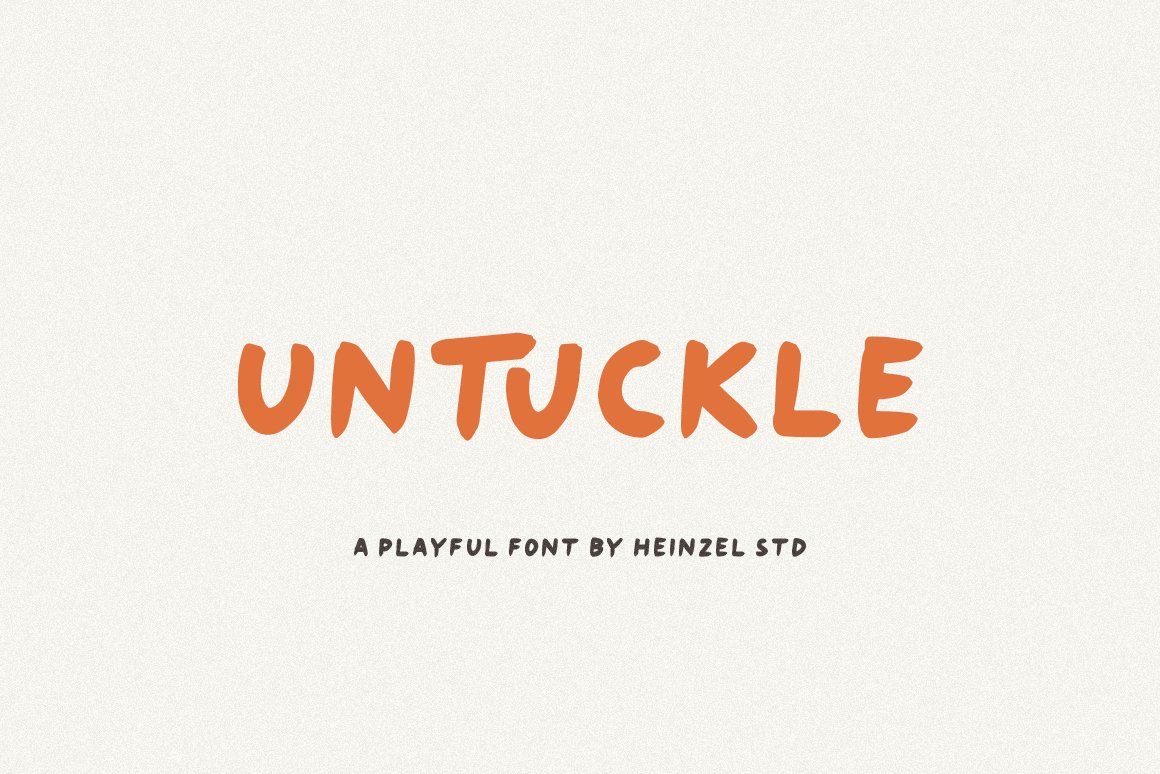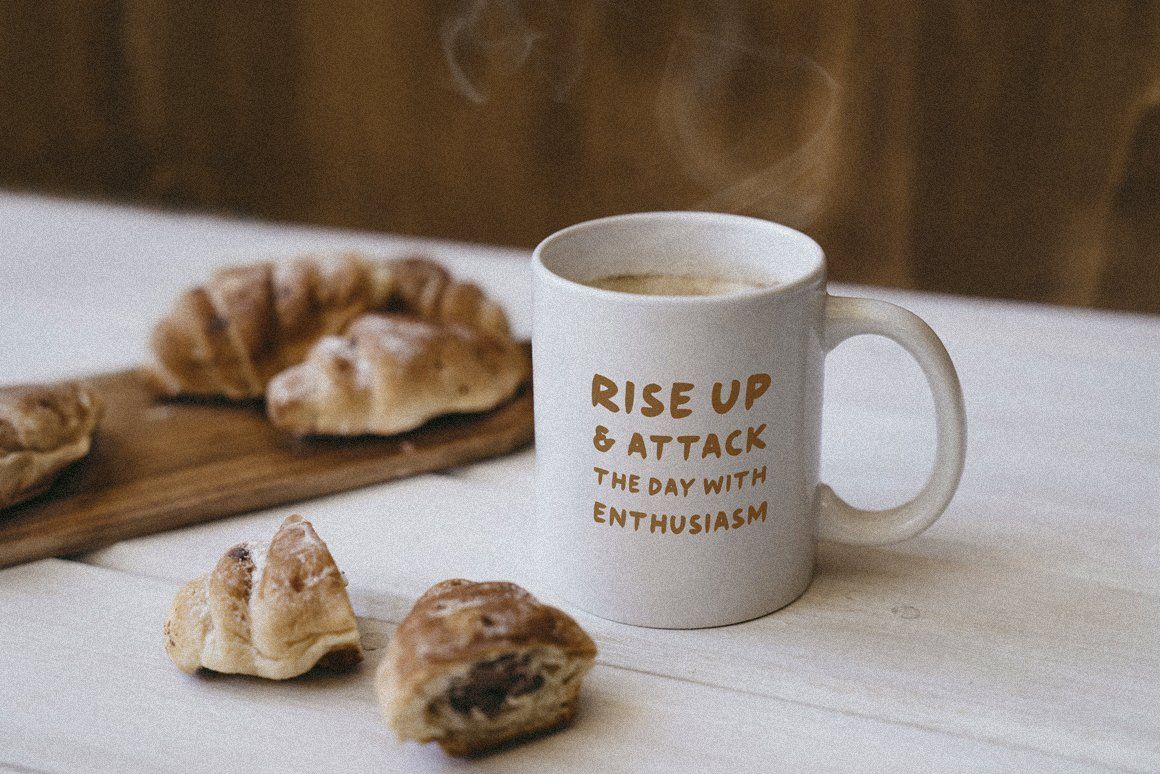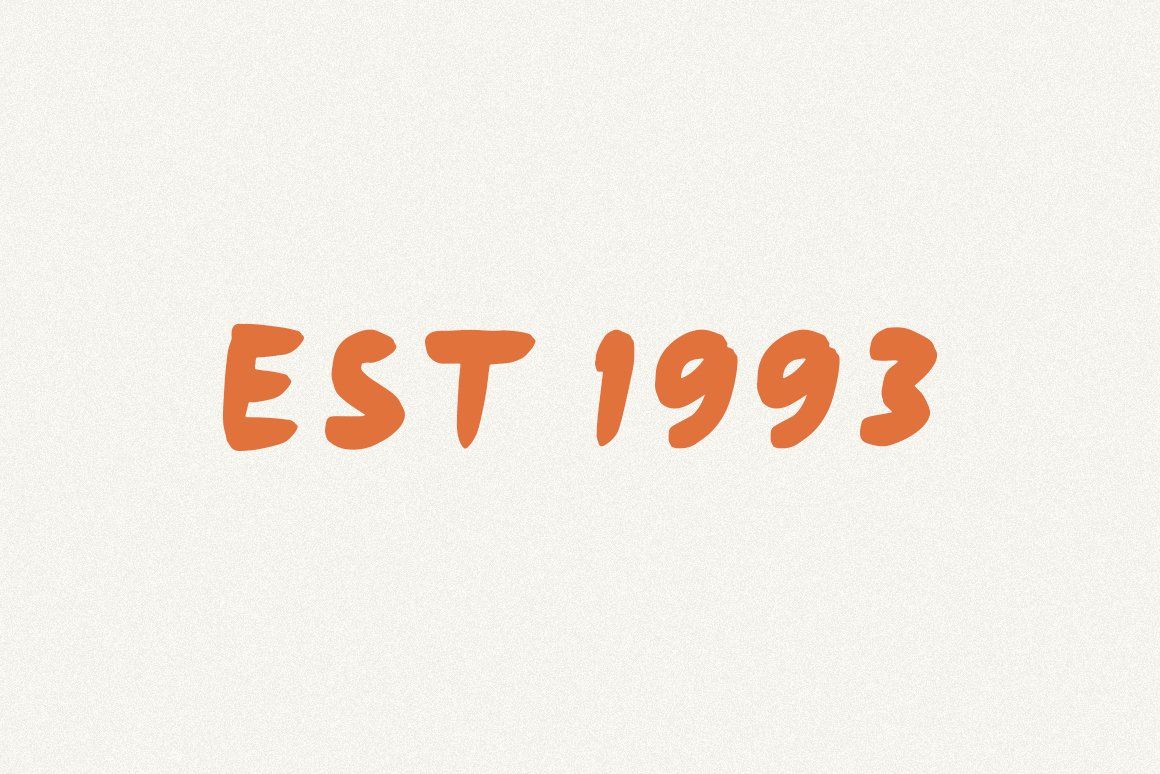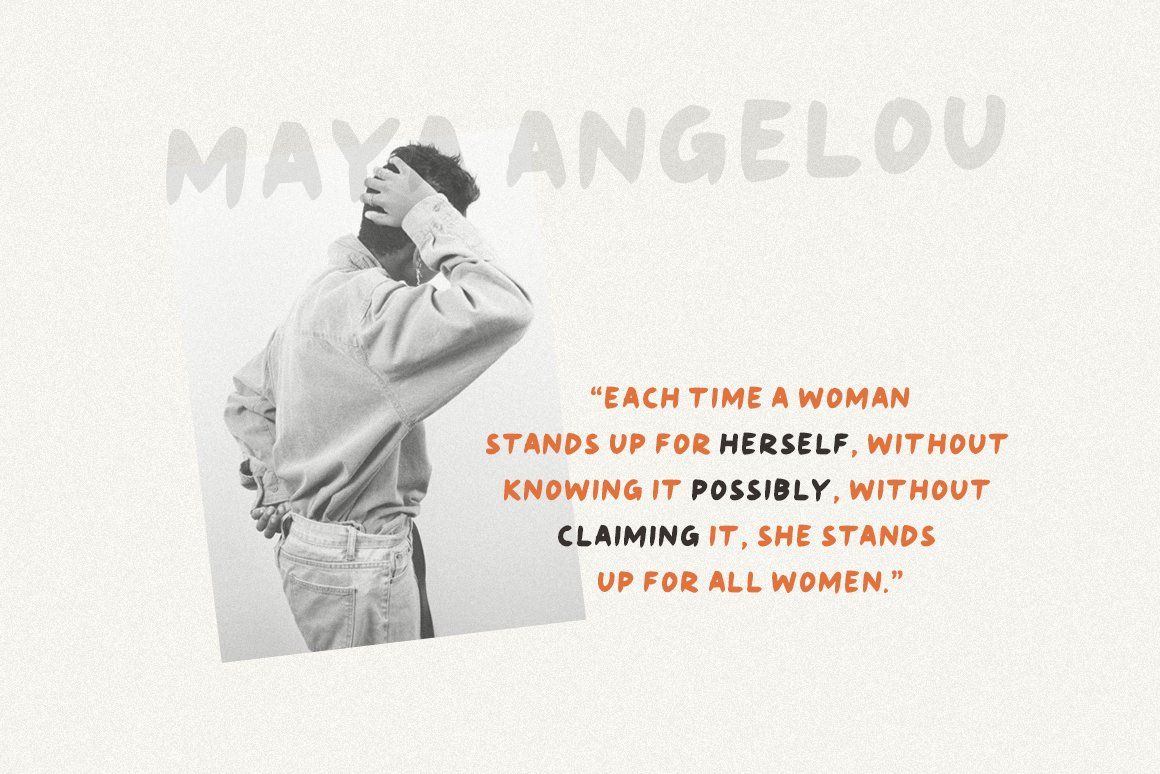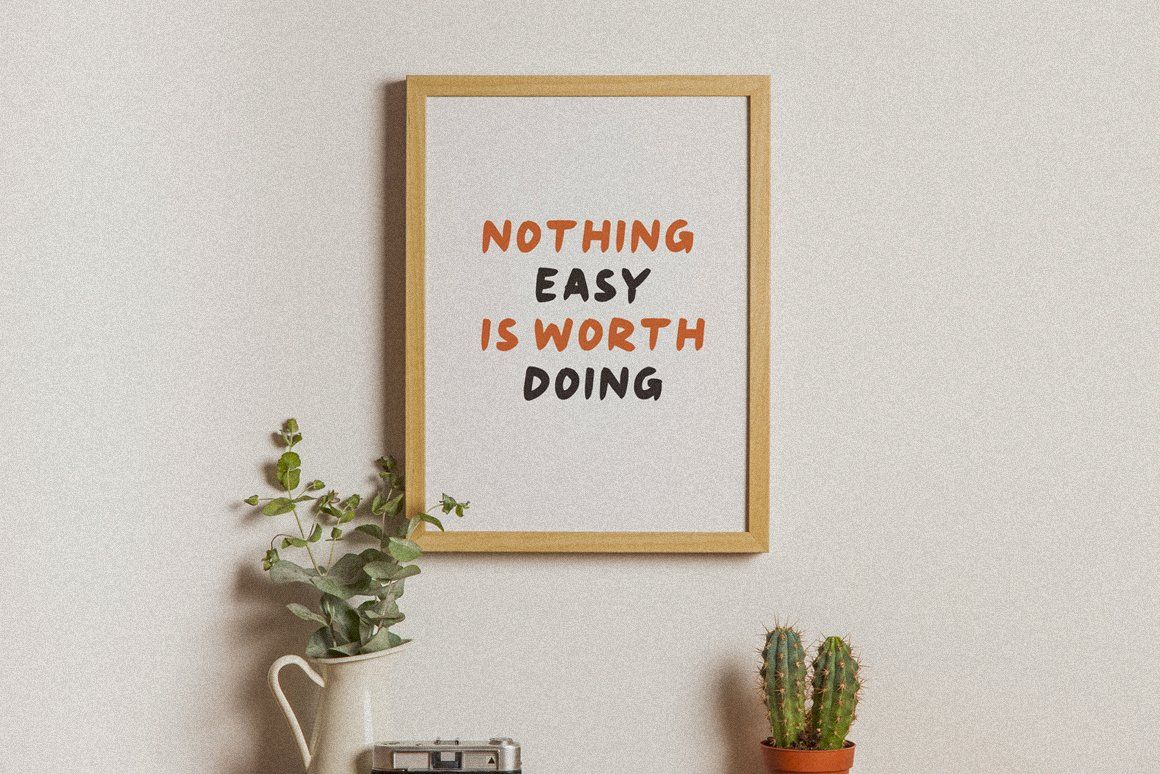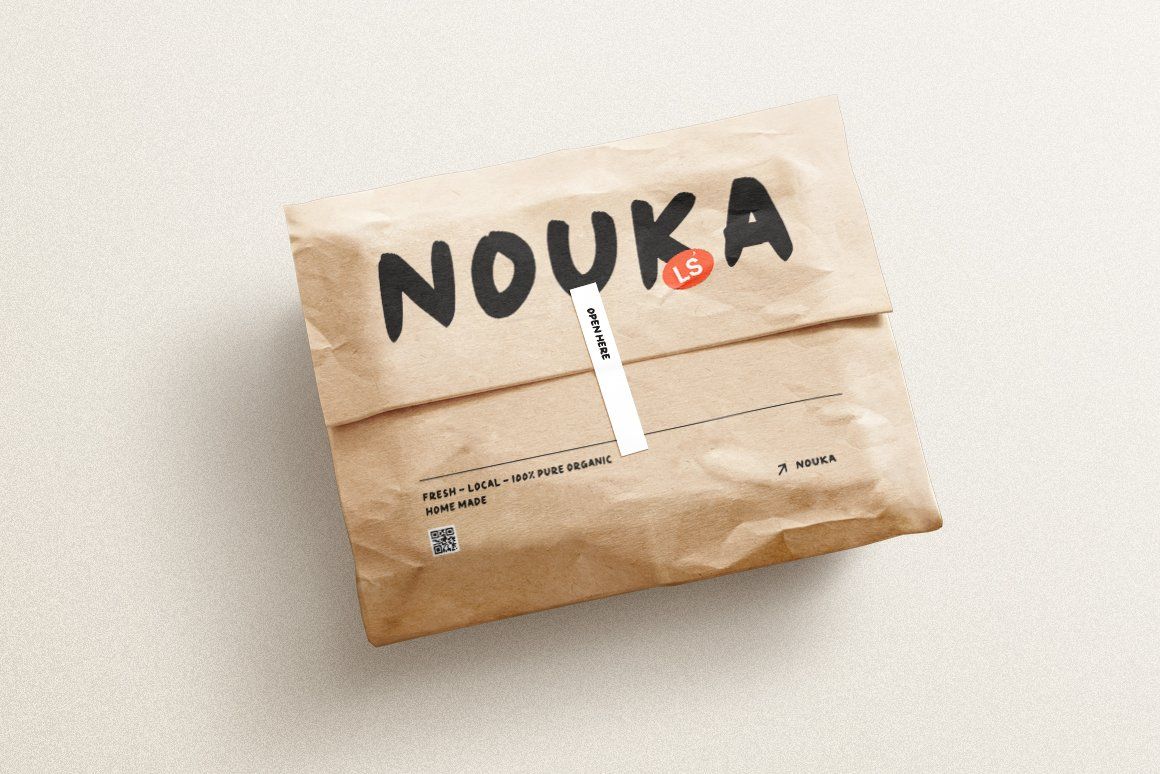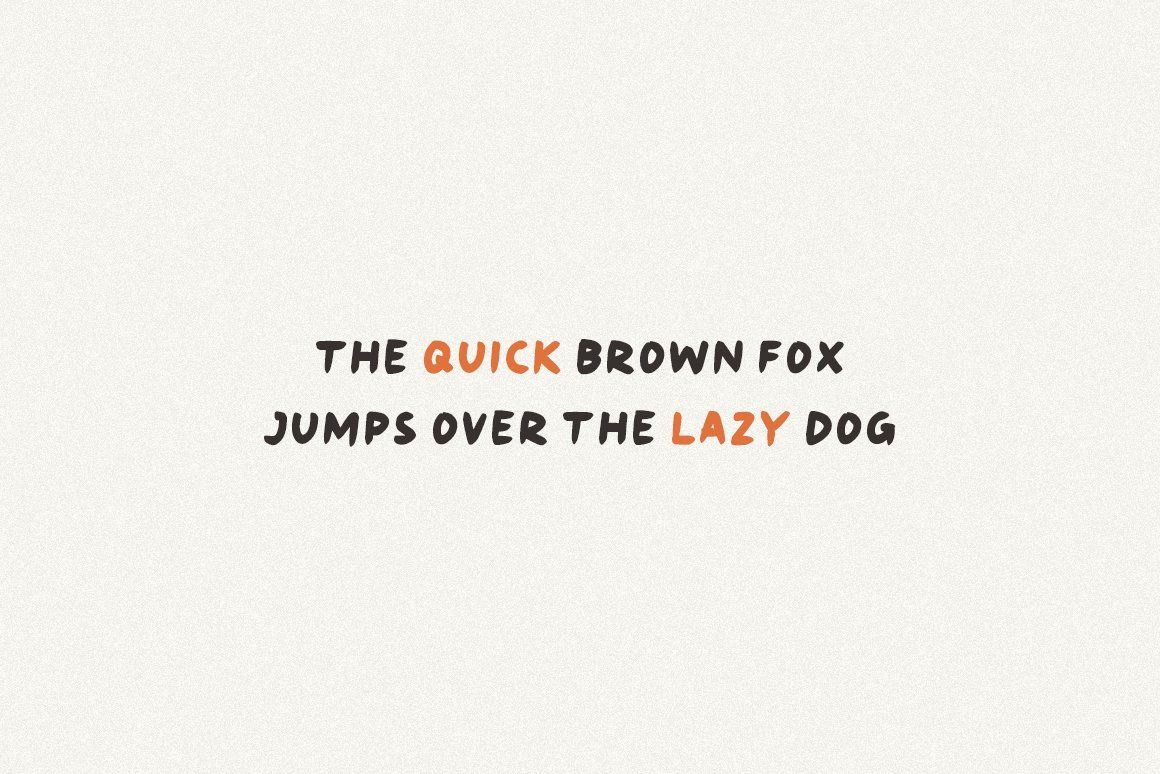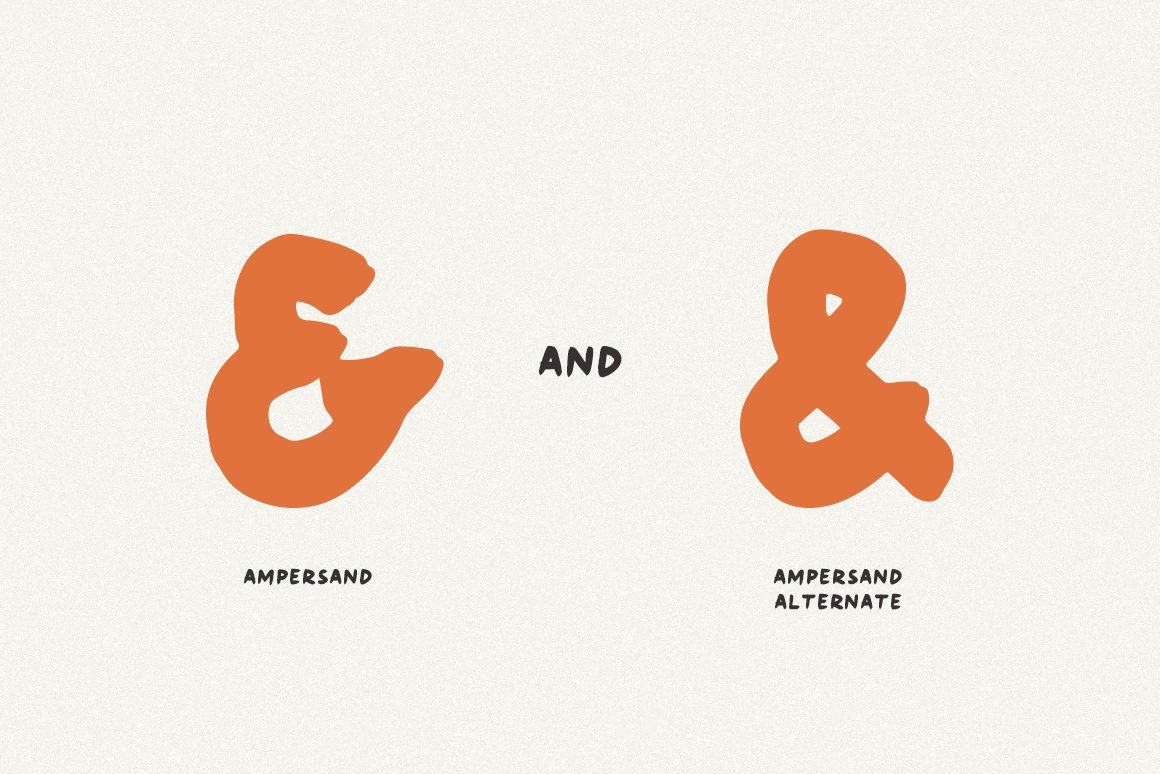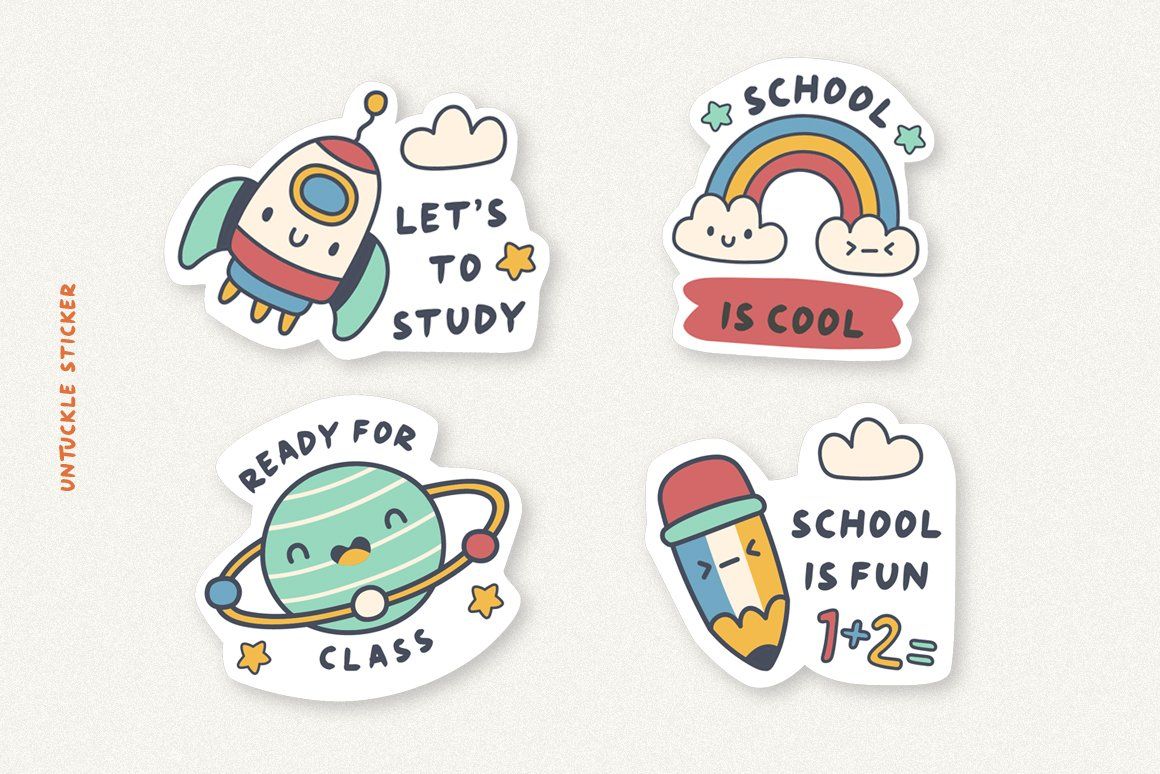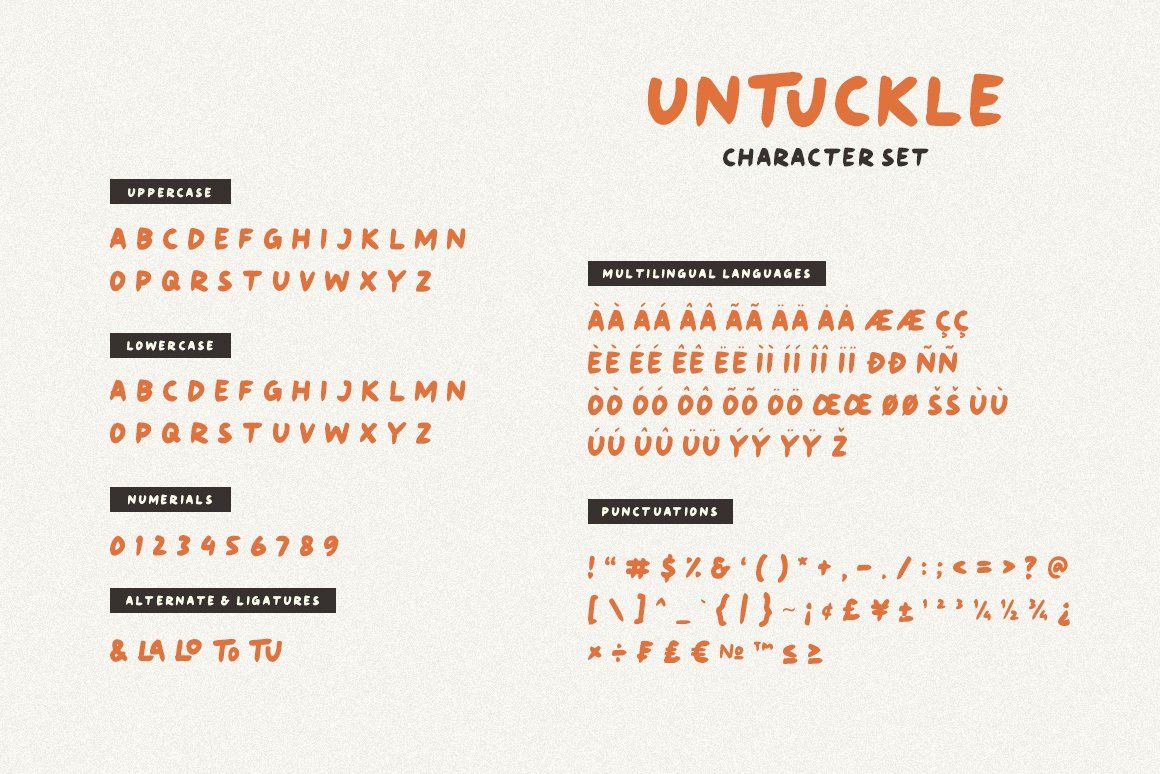
Untuckle is a fun and playful all-caps handwritten font that brings energy and personality to your designs. Perfect for posters, logos, branding, packaging, and social media projects, Untuckle adds a cheerful and hand-crafted touch to any creative work. Its bold, casual strokes make it ideal for both kids’ themes and modern creative branding. Let your design feel lively and full of character with Untuckle font!